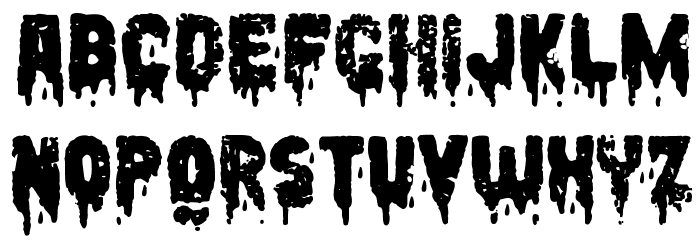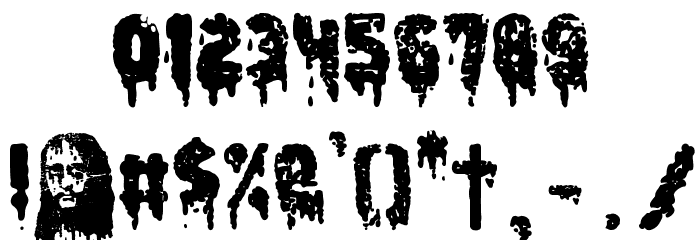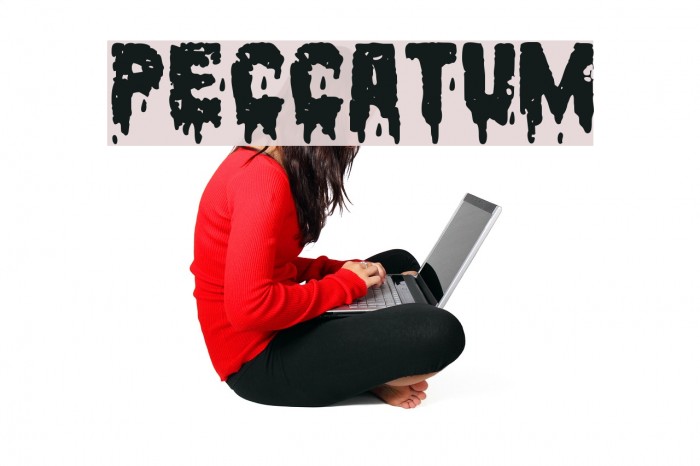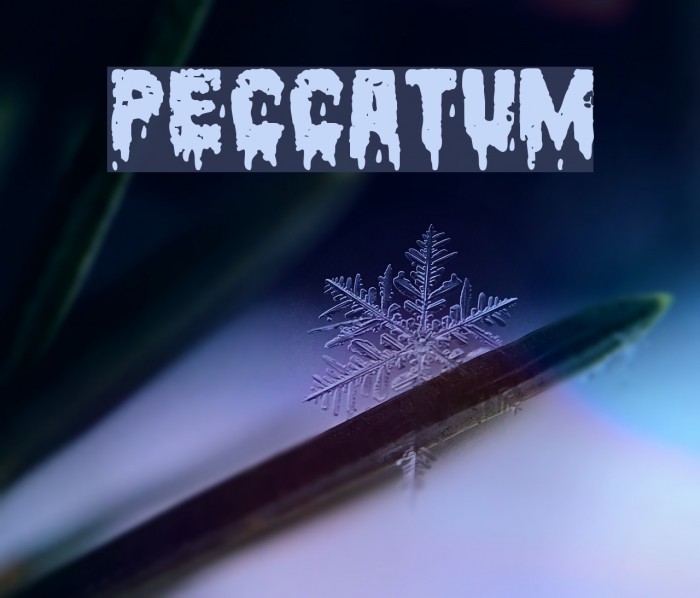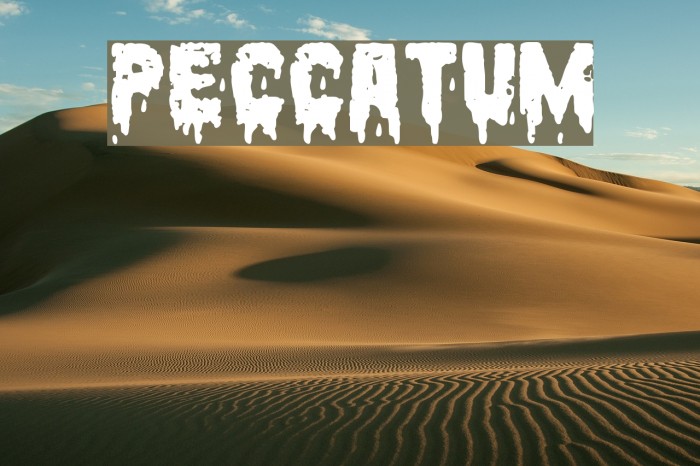
Peccatum Font
This font features a bold and dramatic style with a dripping effect that gives it a horror or Halloween-themed appearance. The characters are heavily stylized, with each letter appearing as if it is melting or dripping, creating a sense of movement and fluidity. The uppercase and lowercase letters maintain a consistent design, enhancing the overall cohesion of the font. Numbers and special characters follow the same dripping motif, making them suitable for thematic designs. The font's unique style makes it stand out, ideal for projects that require a spooky or eerie aesthetic.
A bold, dripping font perfect for horror-themed designs.
- Proposed Projects: Ideal for Halloween posters, horror movie titles, themed event invitations, and spooky merchandise designs.